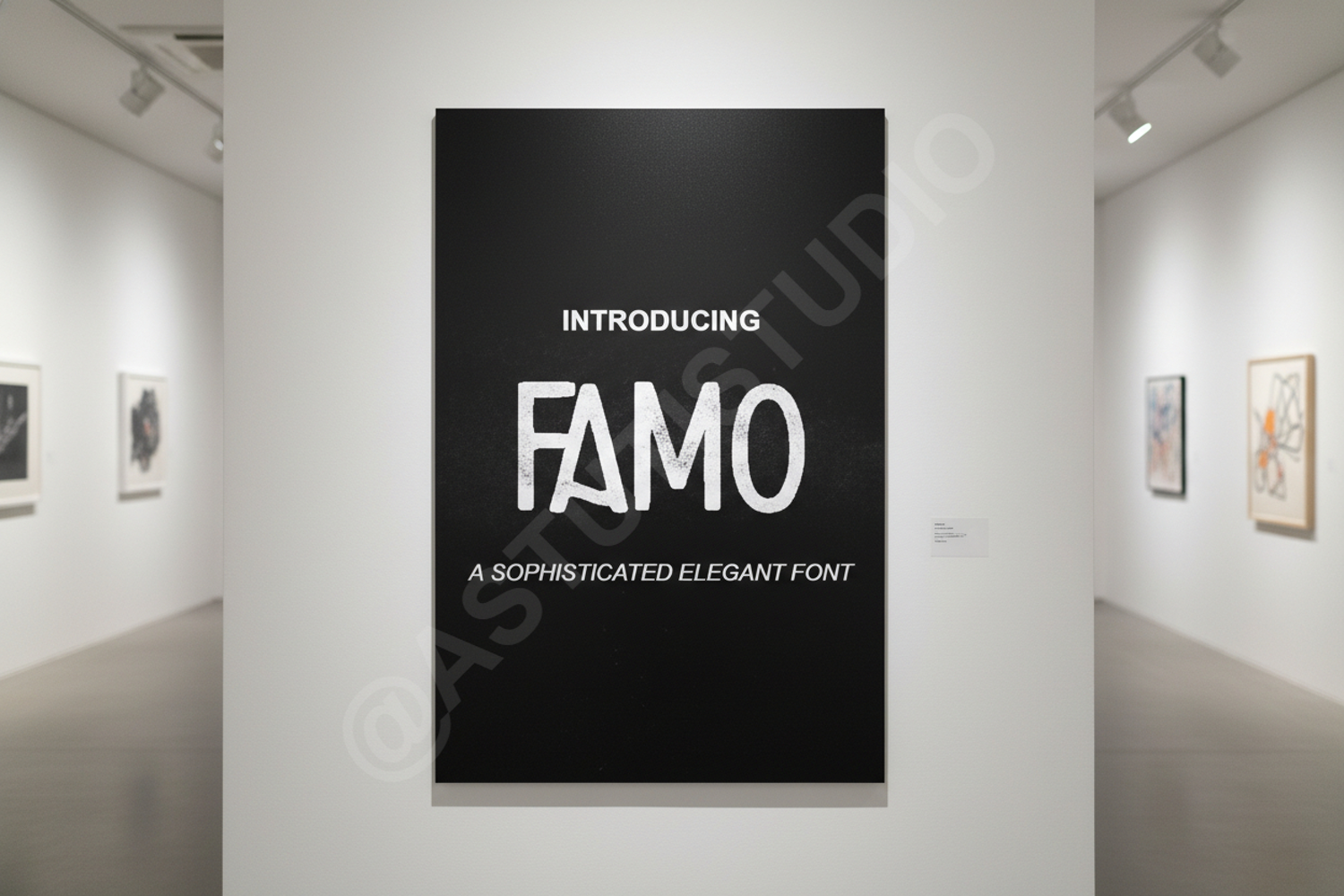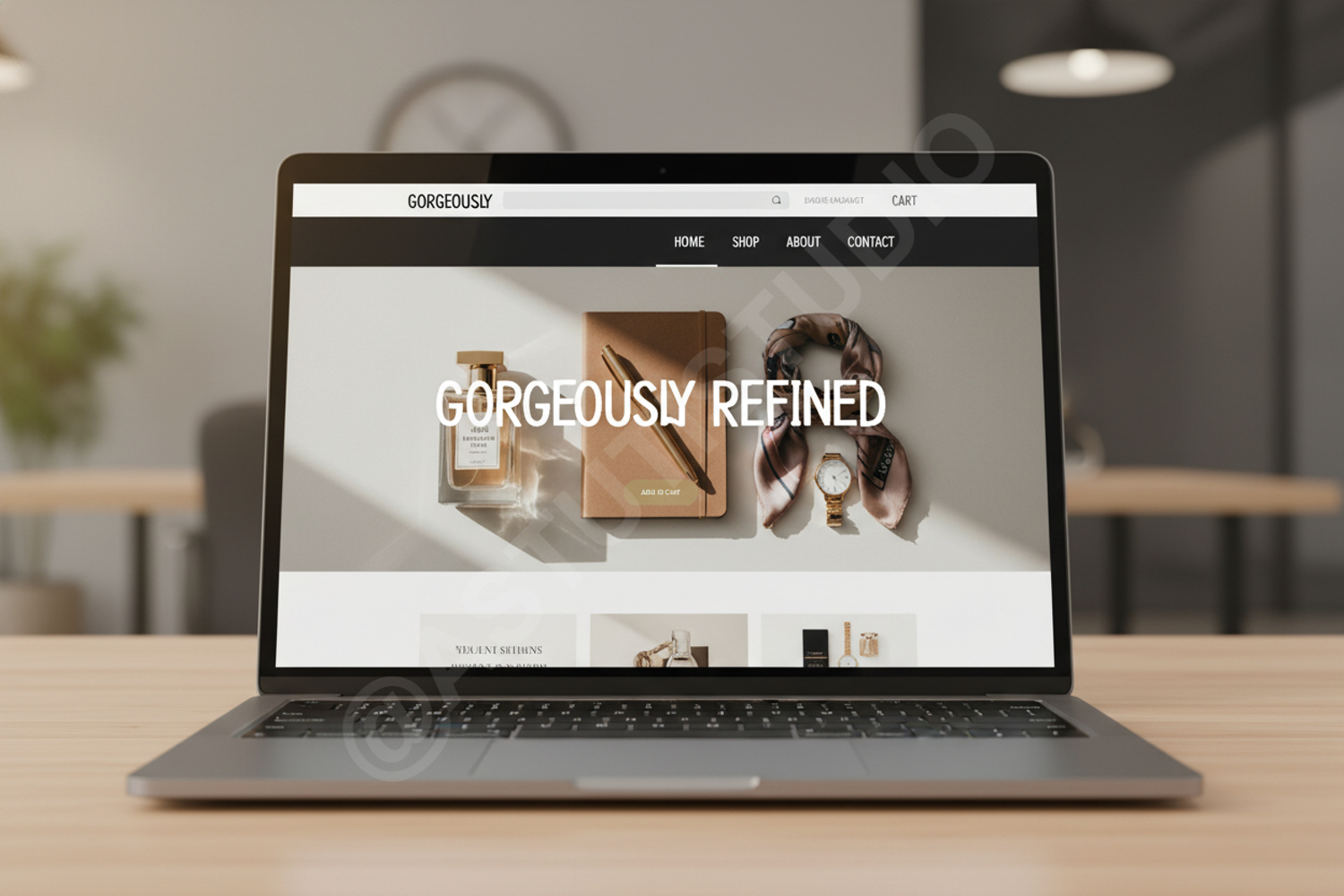
Famo - Sophisticated Modern Sans Serif
Famo
Famo is a premium sans serif font that seamlessly blends modern aesthetics with timeless elegance. Designed for clarity and versatility, this typeface offers a clean, geometric structure that commands attention while remaining highly legible across various applications. Whether you are crafting a high-end brand identity or a minimalist editorial layout, Famo provides the professional edge your projects deserve.
- Comprehensive set of uppercase and lowercase letters
- Numerals, symbols, and punctuation
- Extensive multilingual character support
- Branding and Identity: Create memorable logos and cohesive corporate identities.
- Editorial Design: Perfect for sophisticated magazine layouts, bold headlines, and clean body text.
- Digital Media: Fully optimized for high-readability on websites and social media graphics.
- Packaging Design: Elevate product labels, luxury boxes, and retail tags.
- Professional Presentations: Ensure your pitch decks and reports look polished and modern.